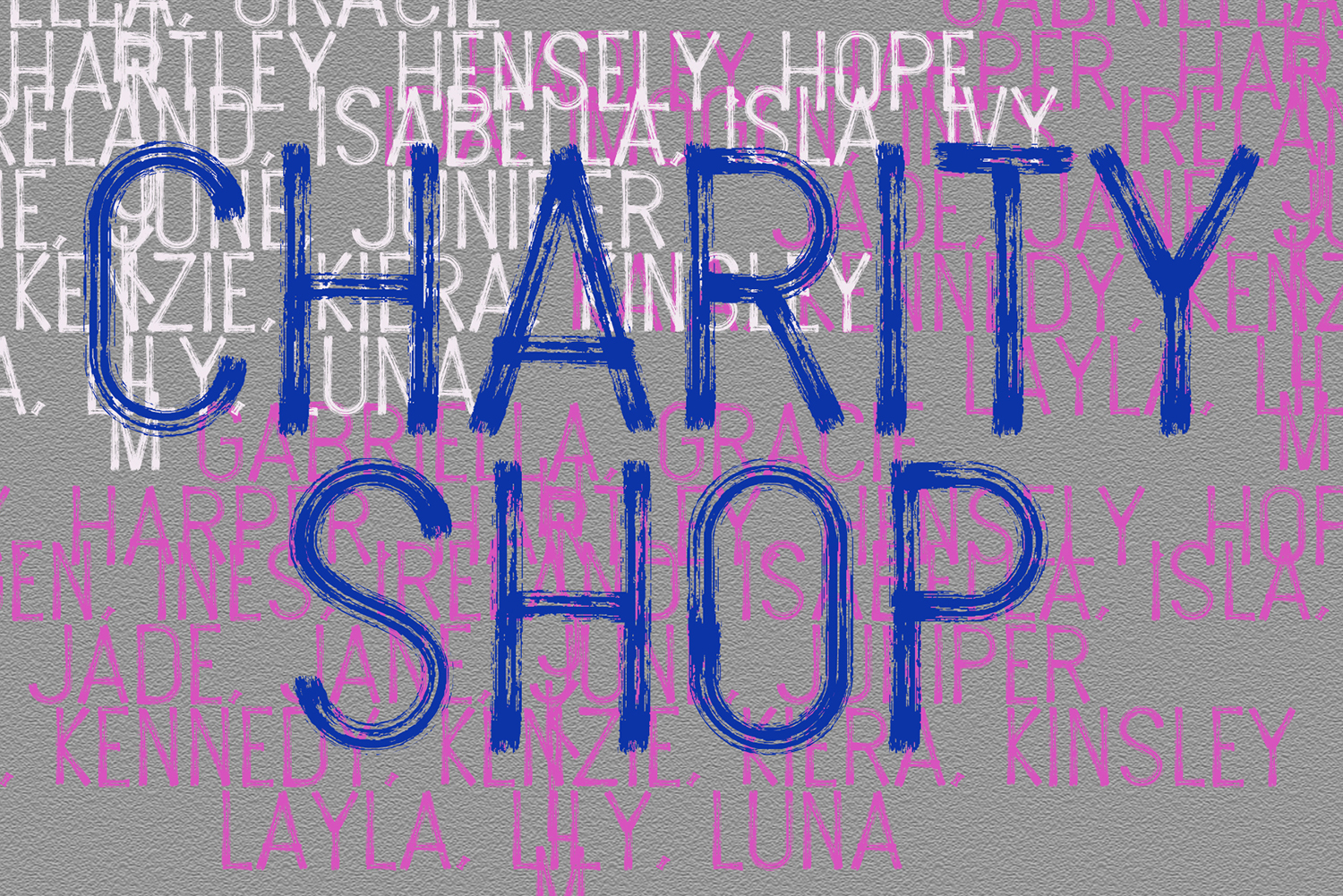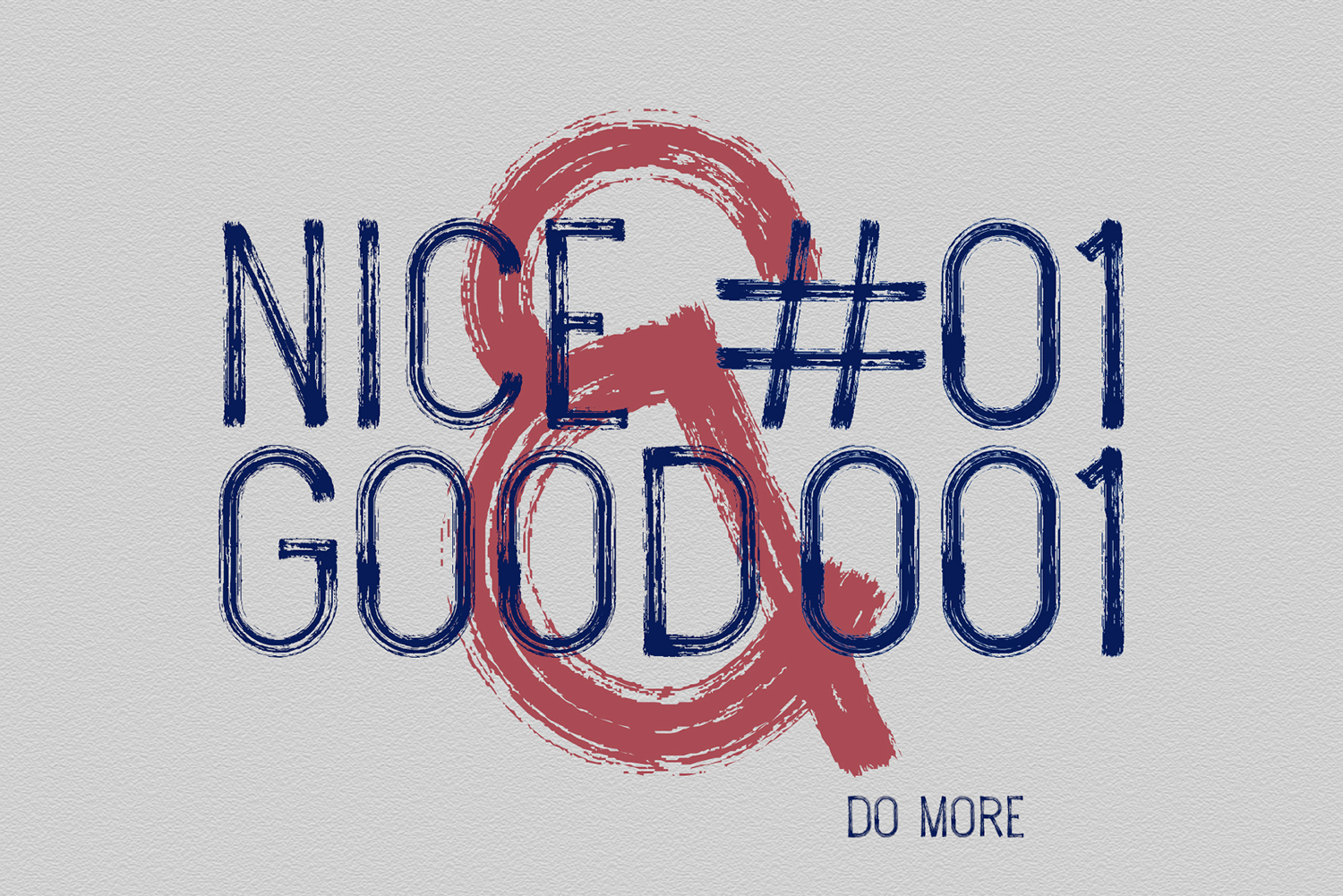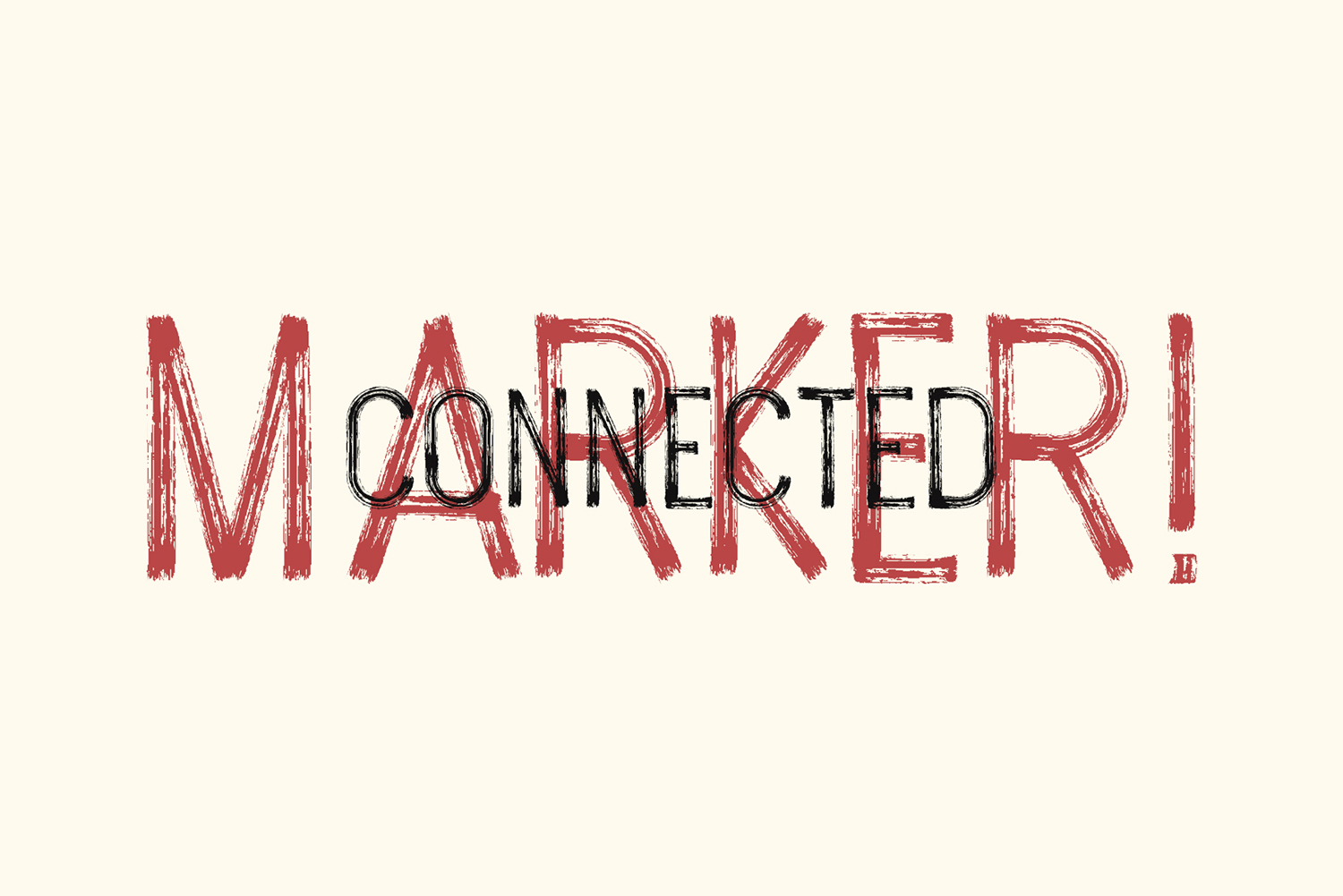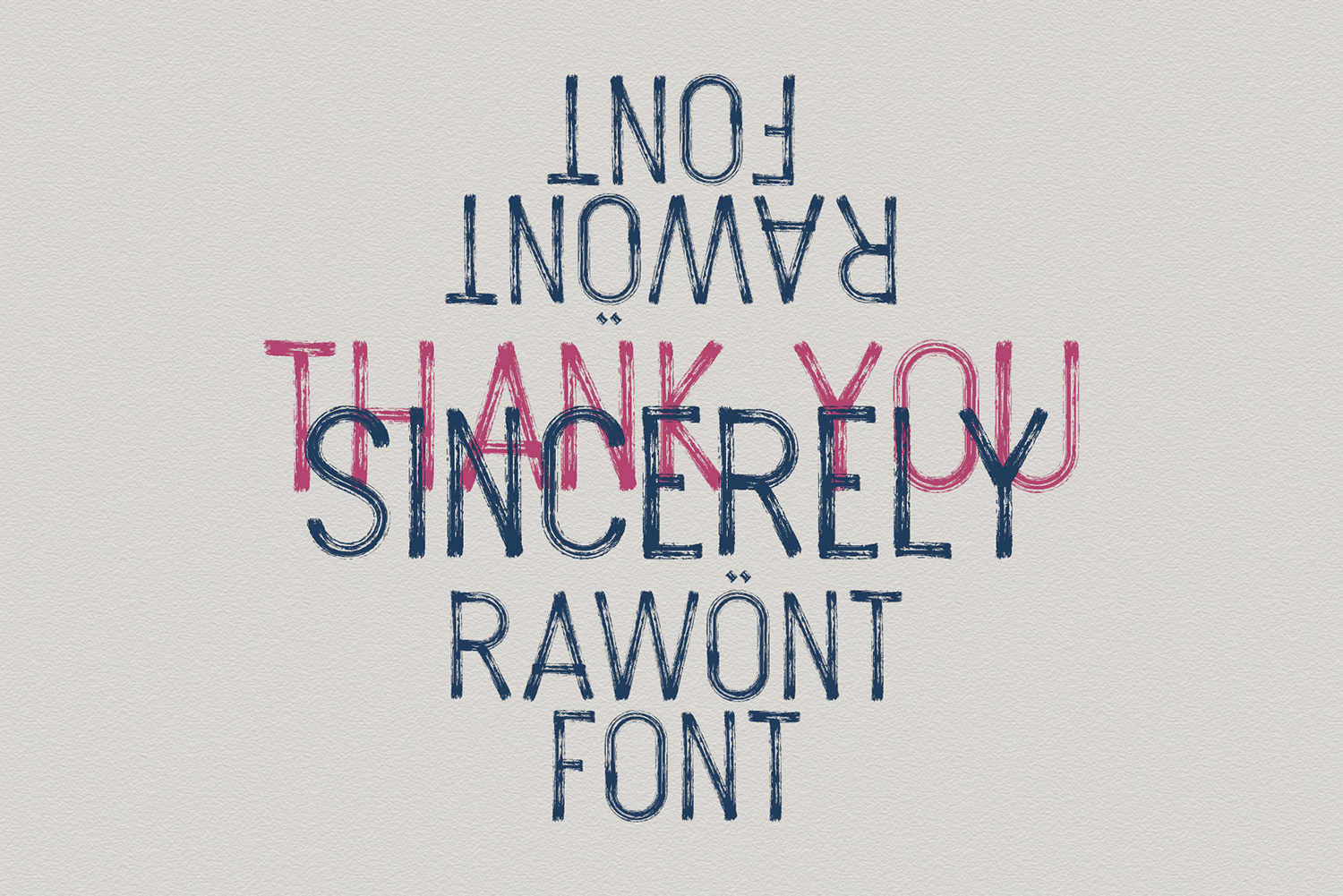
Rawont Free Font
Rawont Free Font presents a contemporary and distinctive display typeface, ideal for diverse design applications. Its bold and one-of-a-kind design makes it a valuable addition to your font collection, elevating the visual impact of any creative project. This free typeface was designed by a talented Owl King. If you like it don’t forget to check out the full version.